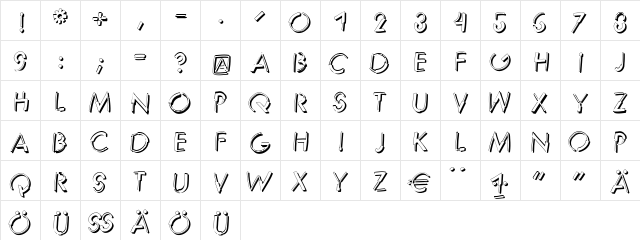
Reduce2MaxShadow ShadowItalic
Design Context for Reduce2MaxShadow Typeface
Reduce2MaxShadow is built around its visual character rather than neutral utility — its distinctive forms are designed to make an impression at display sizes. The dynamic lean of this cut emphasises speed and emphasis in any layout.
Font Pairing: Pair with a clean neutral sans-serif for body copy to let Reduce2MaxShadow's character lead without overwhelming the composition.
Pro Tip: Use Reduce2MaxShadow exclusively at display sizes — it was designed to be seen, not read at length. Let a neutral companion handle body copy.